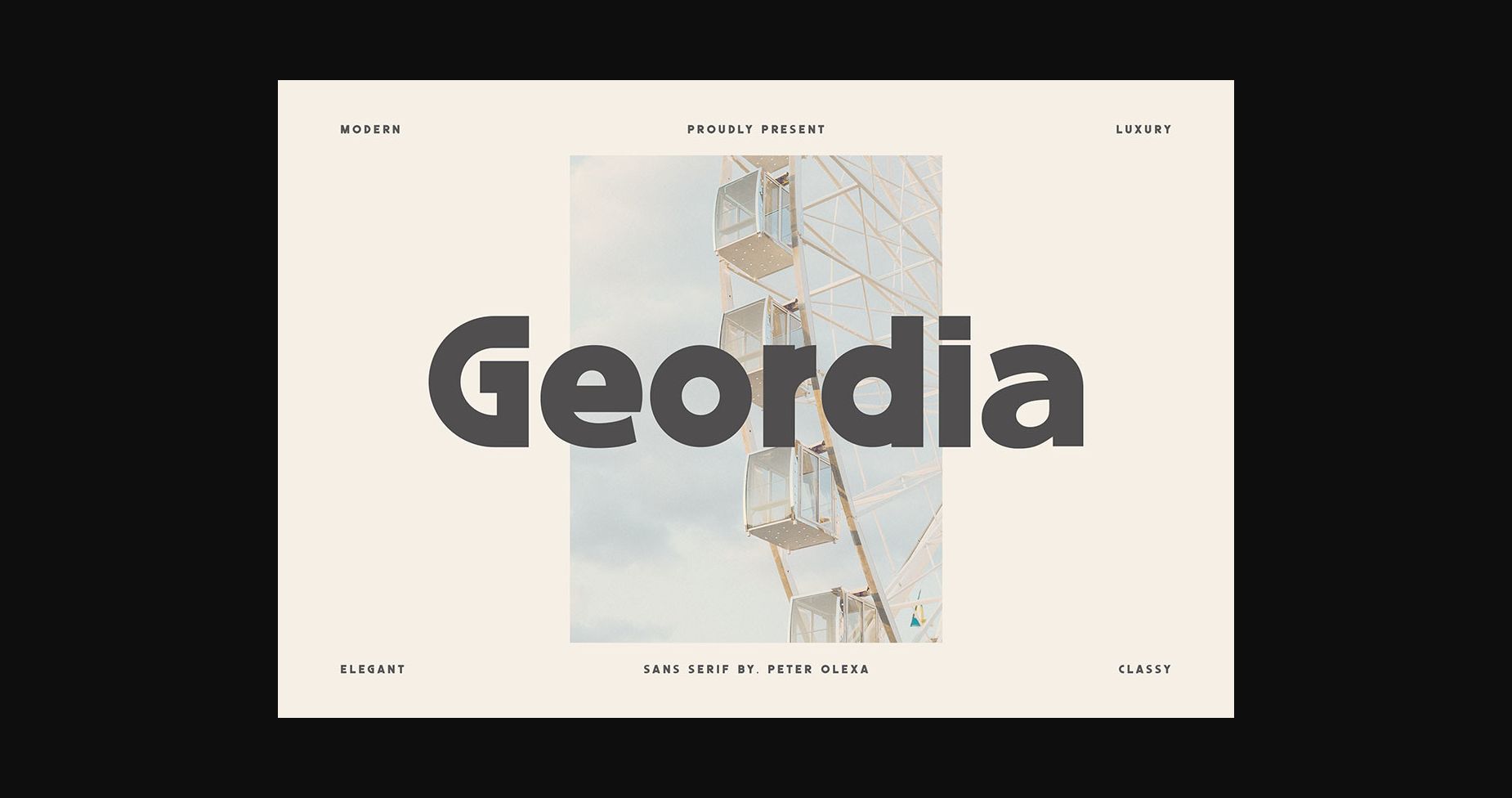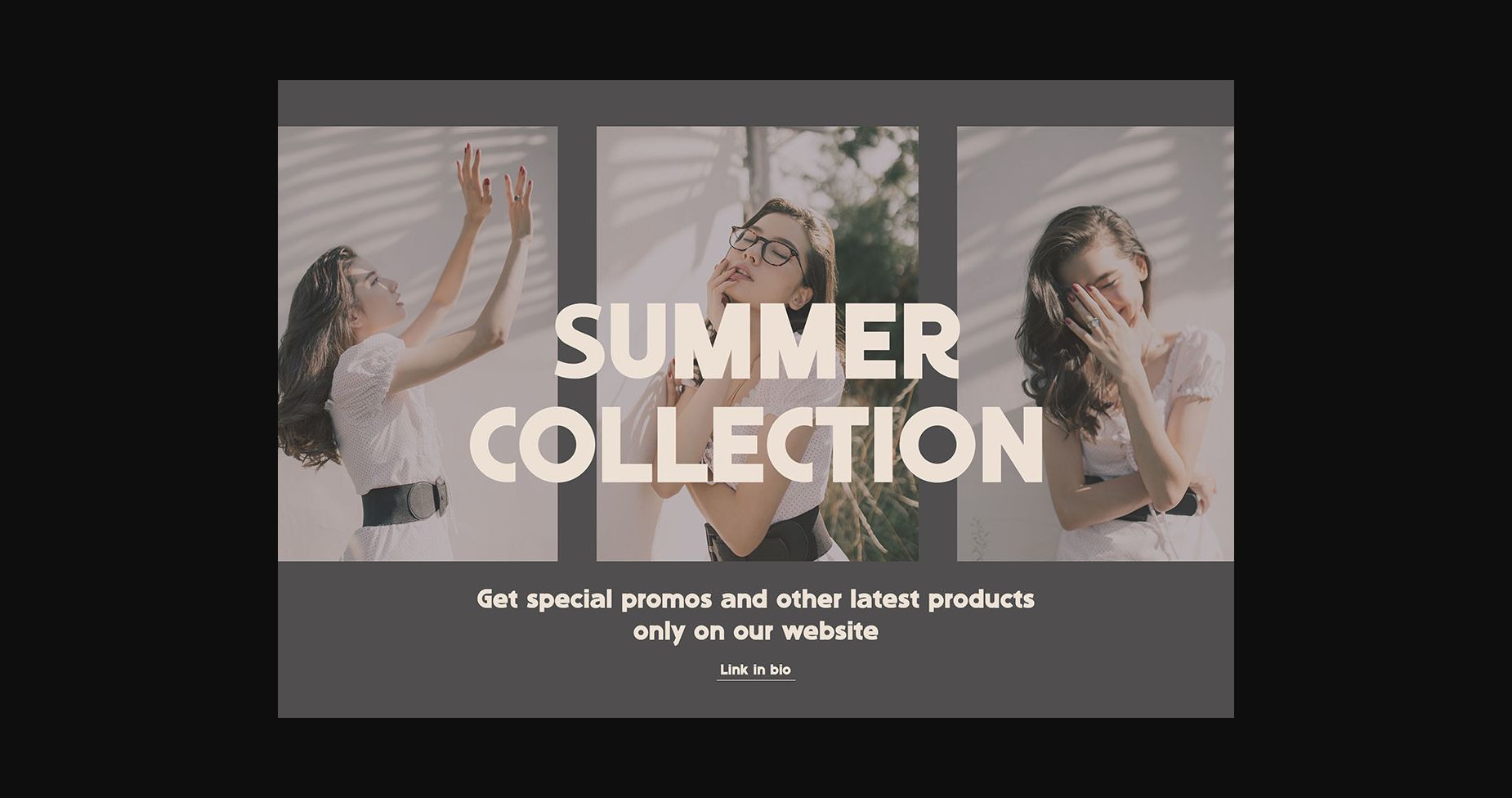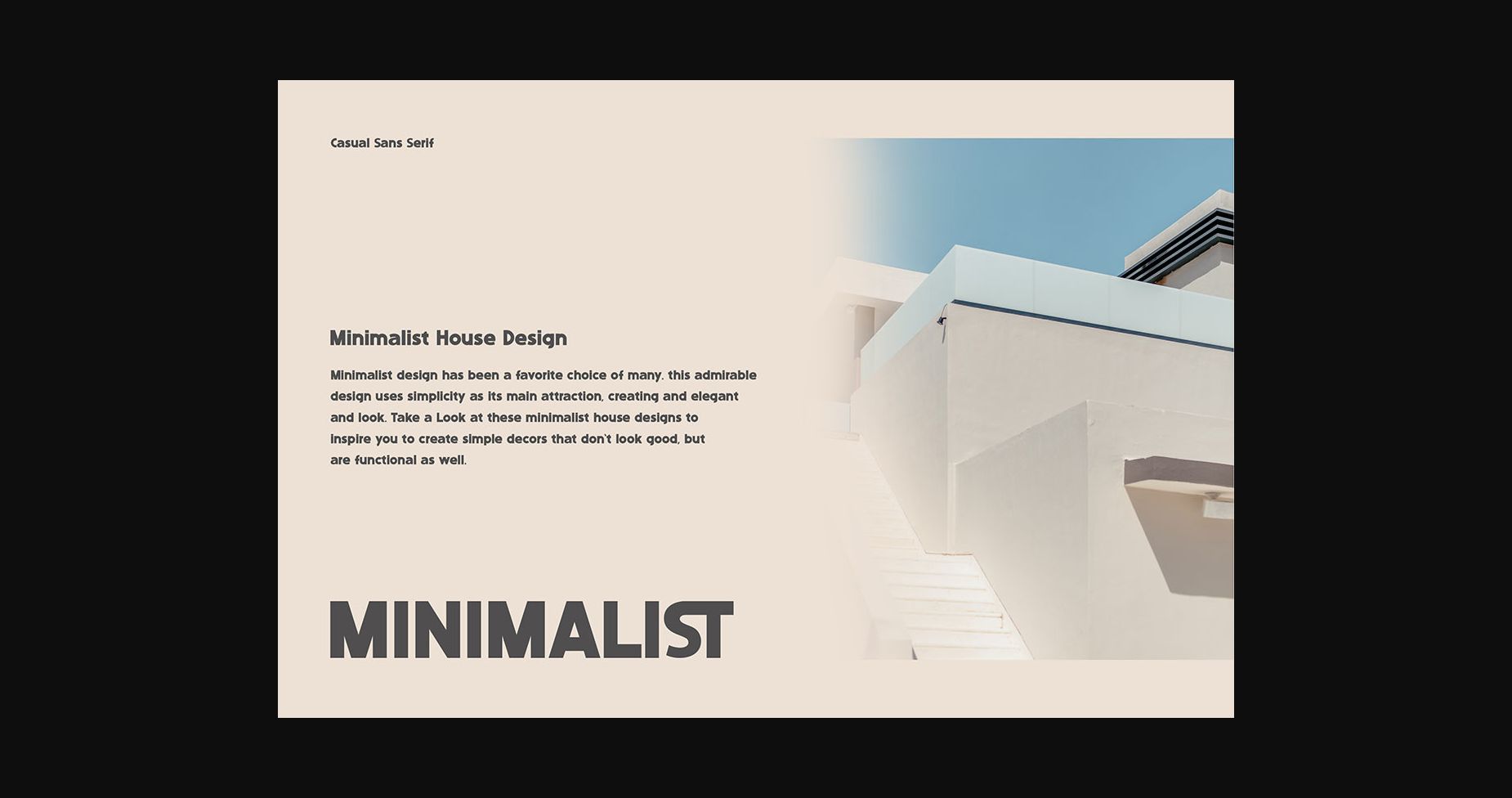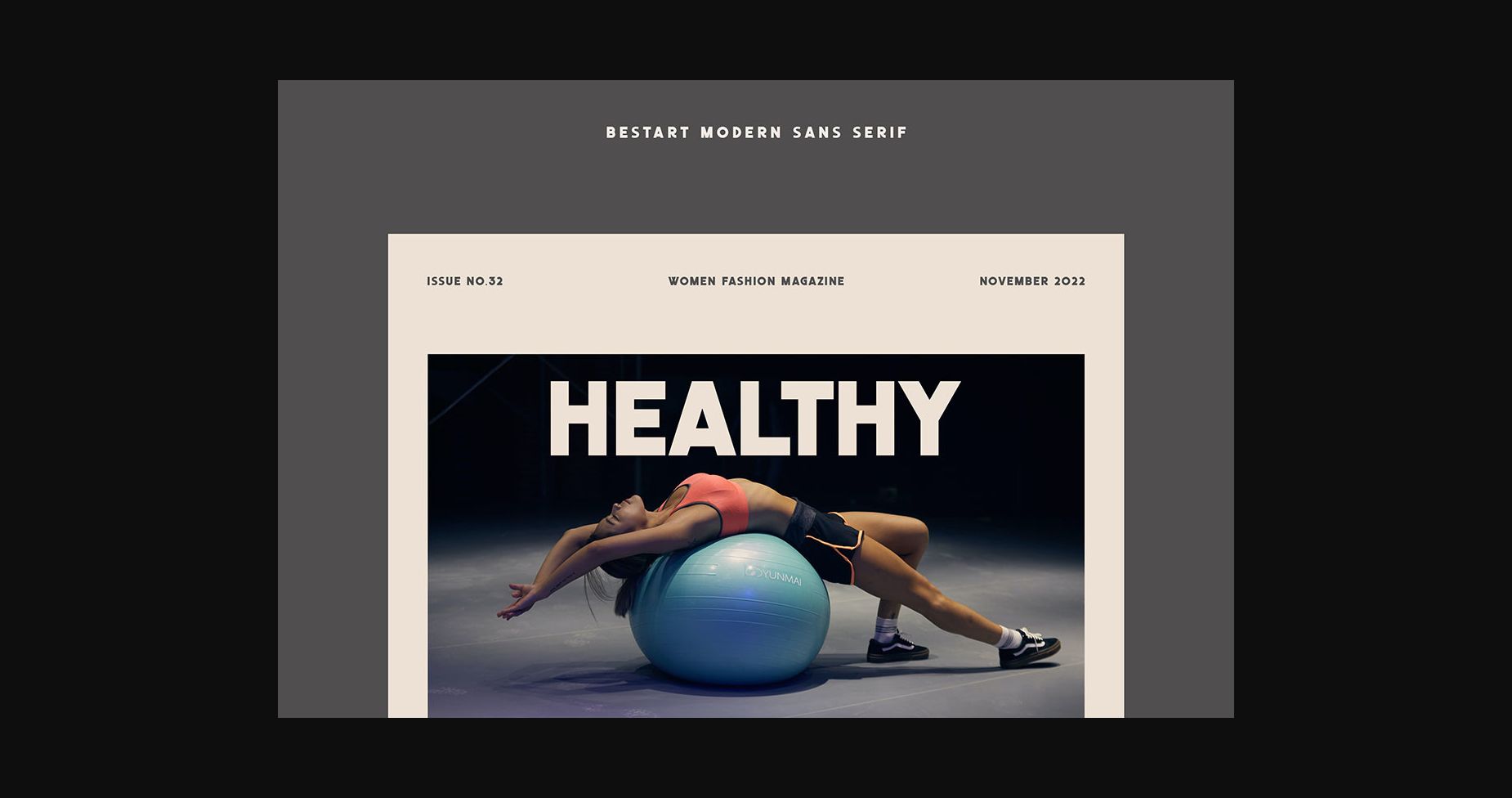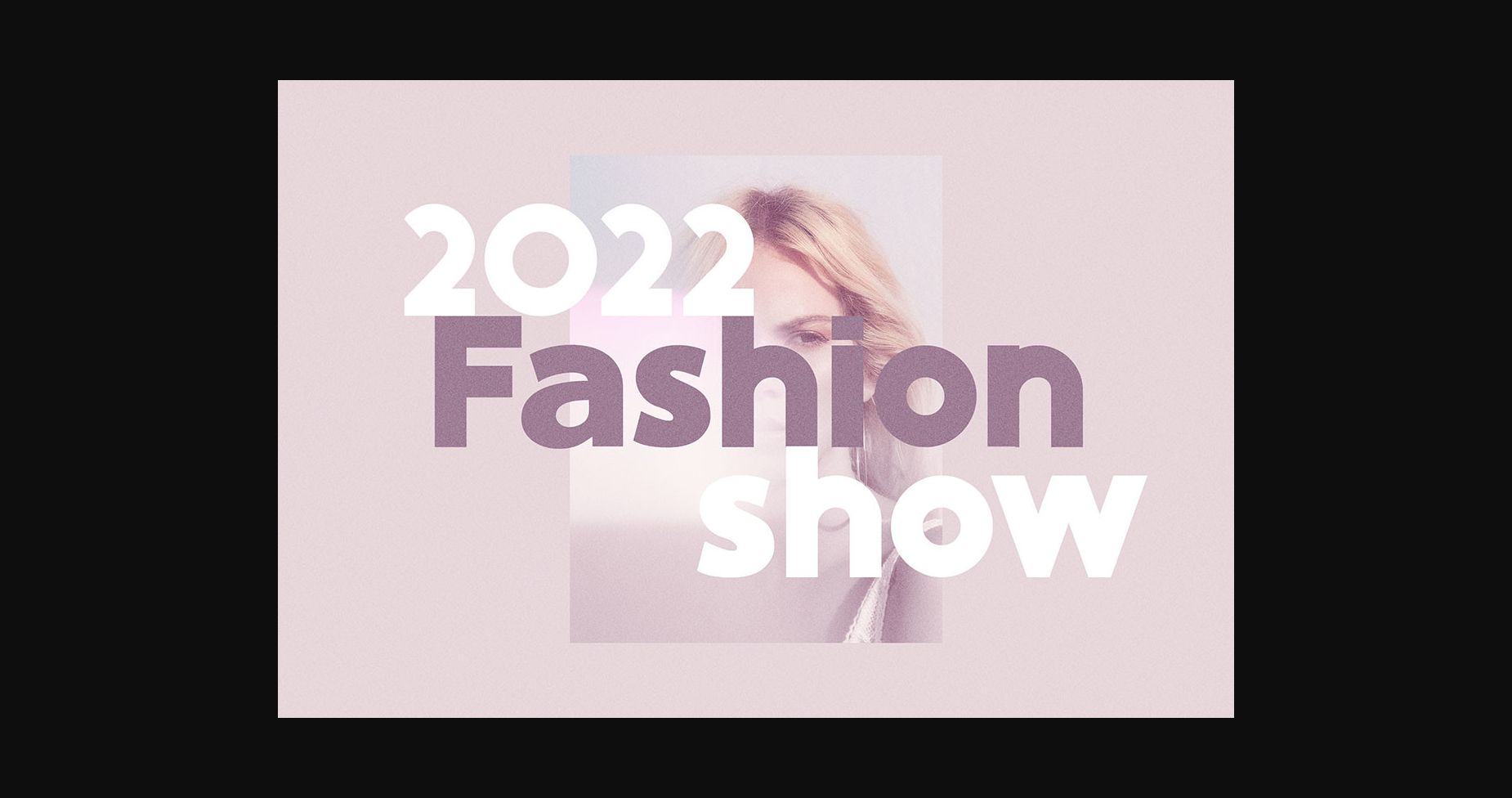
About Geordia Font
Geordia is the epitome of modern elegance. This sans-serif font boasts clean, minimal lines and a timeless appeal that exudes sophistication. Each character is crafted with precision and simplicity, making it the perfect choice for branding, packaging, and editorial design. Serenity – where simplicity meets style.